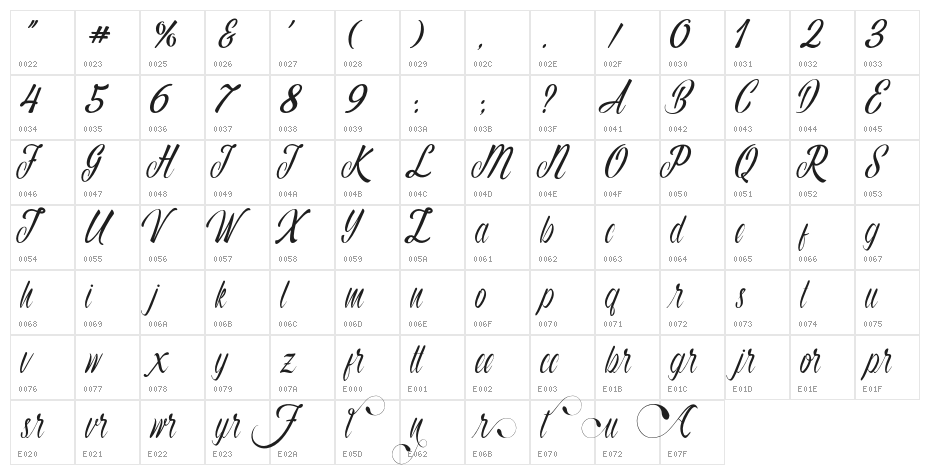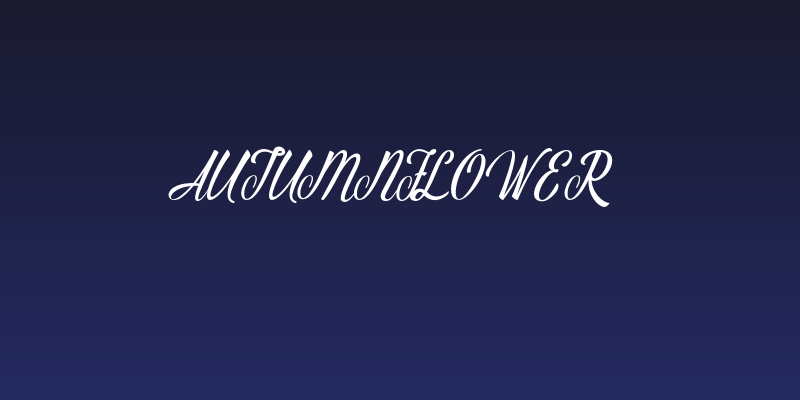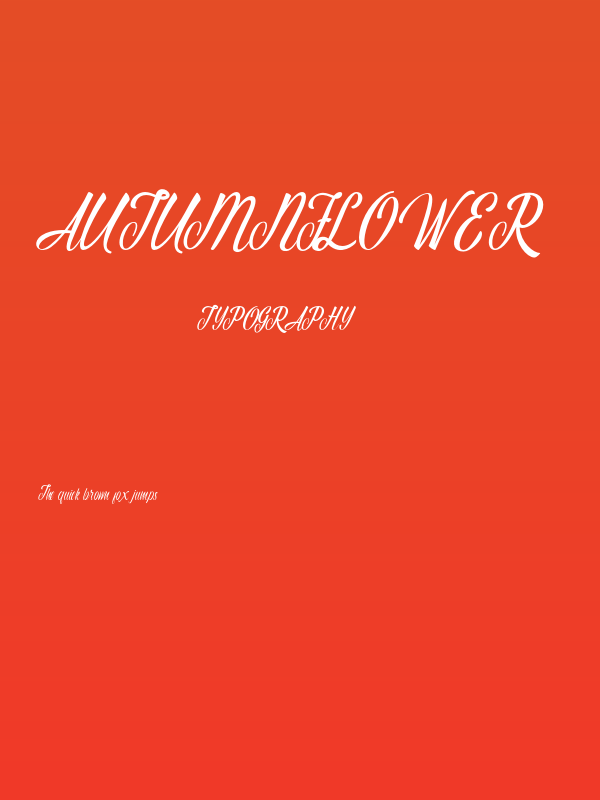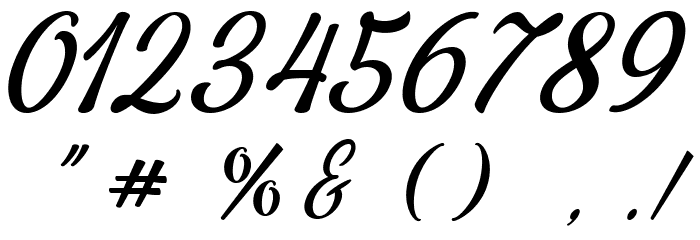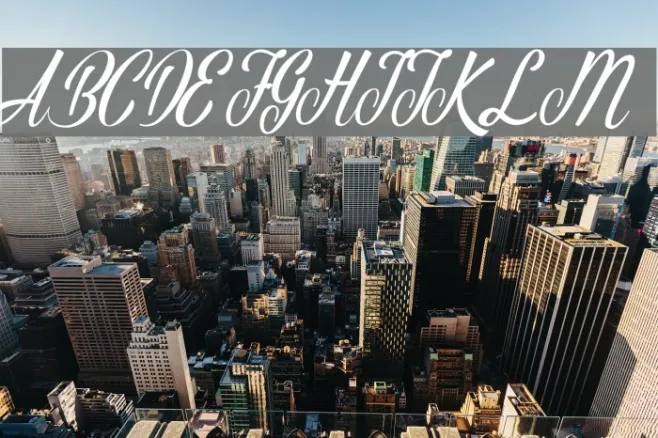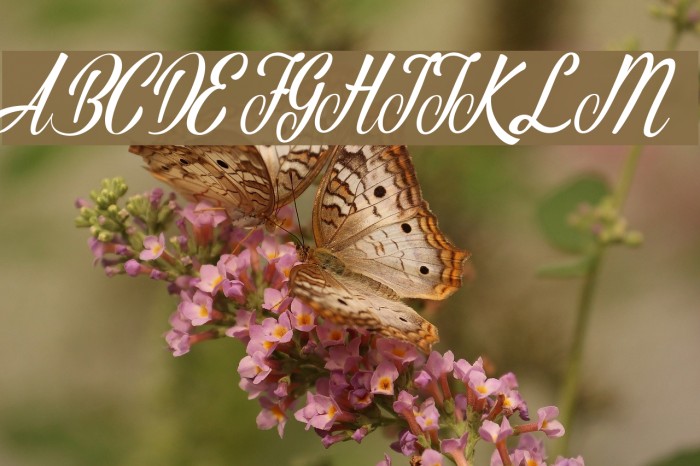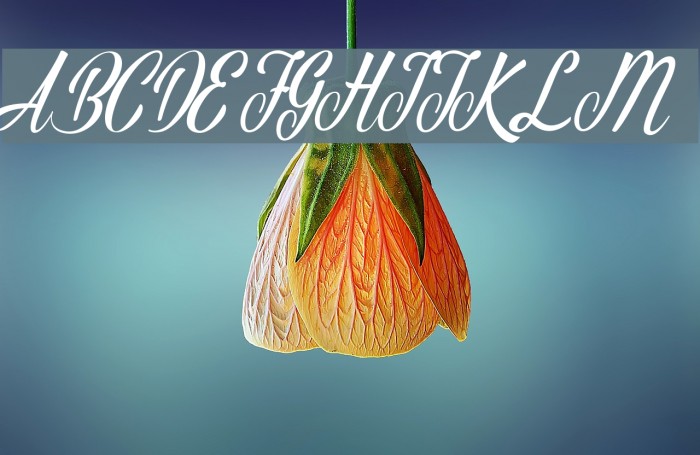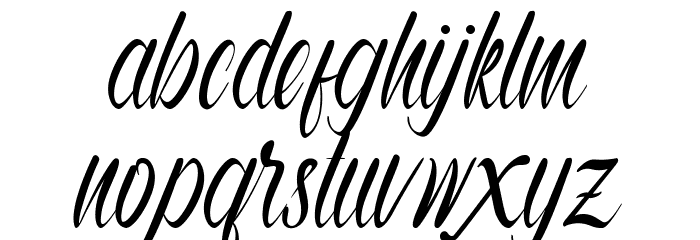
AutumnFlower Font
AutumnFlower Description
This elegant script font features flowing, interconnected letters that exude a sense of sophistication and grace. The uppercase letters are tall and slightly slanted, with delicate curves and flourishes that add a touch of drama. The lowercase letters maintain a consistent style, with smooth, rounded forms and subtle connections between characters. The numerals are similarly styled, with a graceful appearance that complements the overall design. Special characters are thoughtfully integrated, maintaining the font's cohesive aesthetic. This font is ideal for projects that require a touch of elegance and refinement.
| Proposed Projects | Ideal for wedding invitations, elegant branding, luxury product packaging, and sophisticated event posters. |